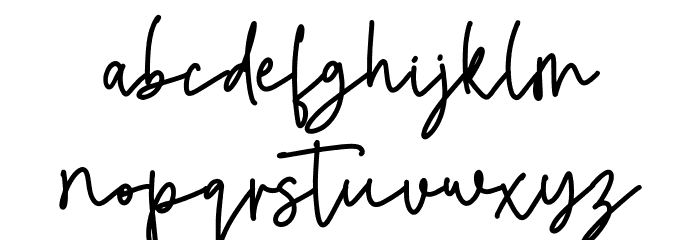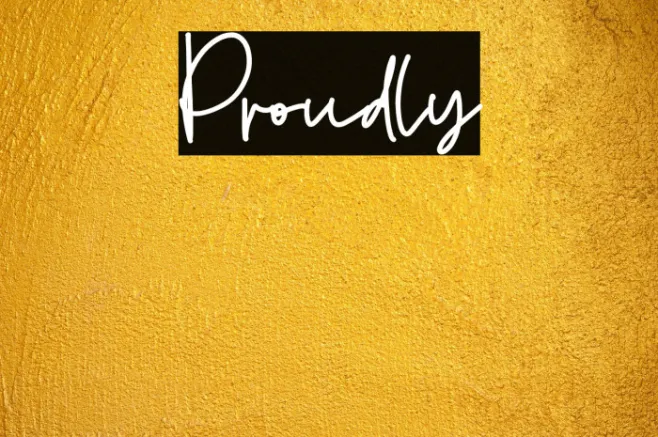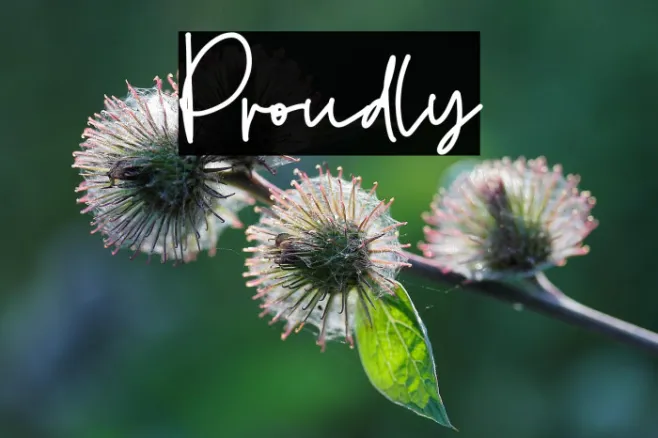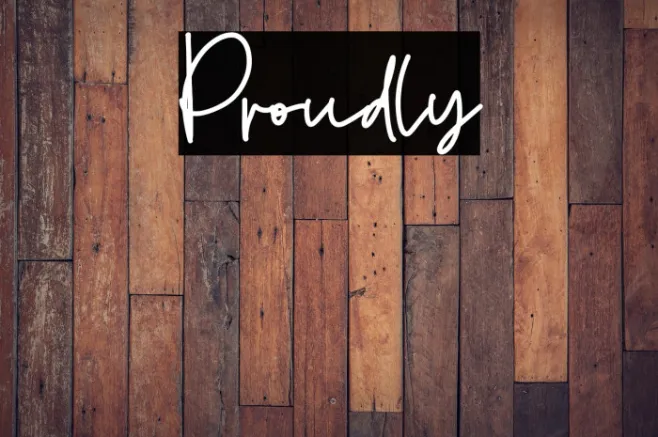
Proudly Font
This font features a playful and energetic handwritten style, characterized by its fluid and dynamic strokes. The uppercase letters are bold and expressive, with a slightly irregular baseline that adds to its casual charm. The lowercase letters maintain a consistent flow, enhancing readability while retaining a personal touch. The numbers and special characters are crafted with the same lively spirit, making them suitable for creative and informal designs. The overall appearance is both modern and approachable, perfect for projects that require a touch of personality and warmth.
A playful and energetic handwritten font with fluid strokes.
- Proposed Projects: Ideal for greeting cards, invitations, personal branding, and social media graphics.
- Use Case: Logos, Headlines, Informal Text